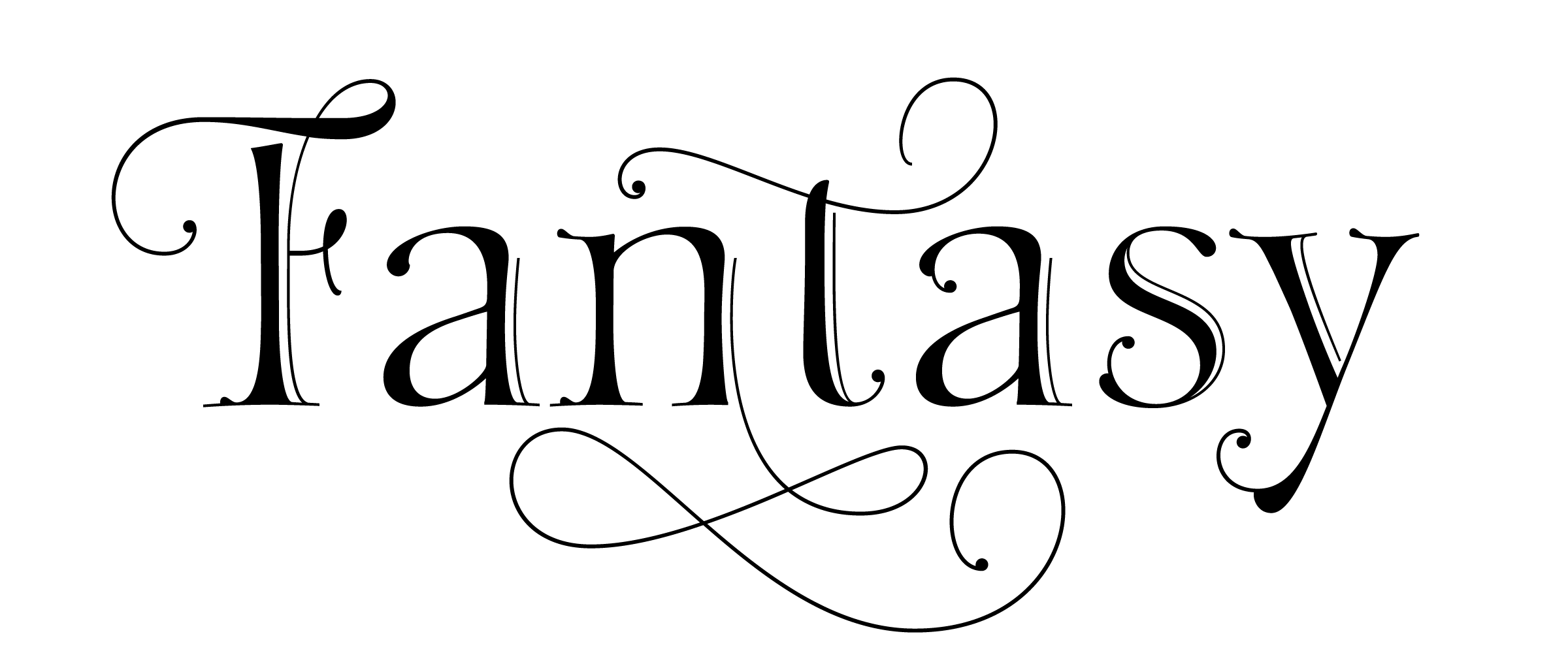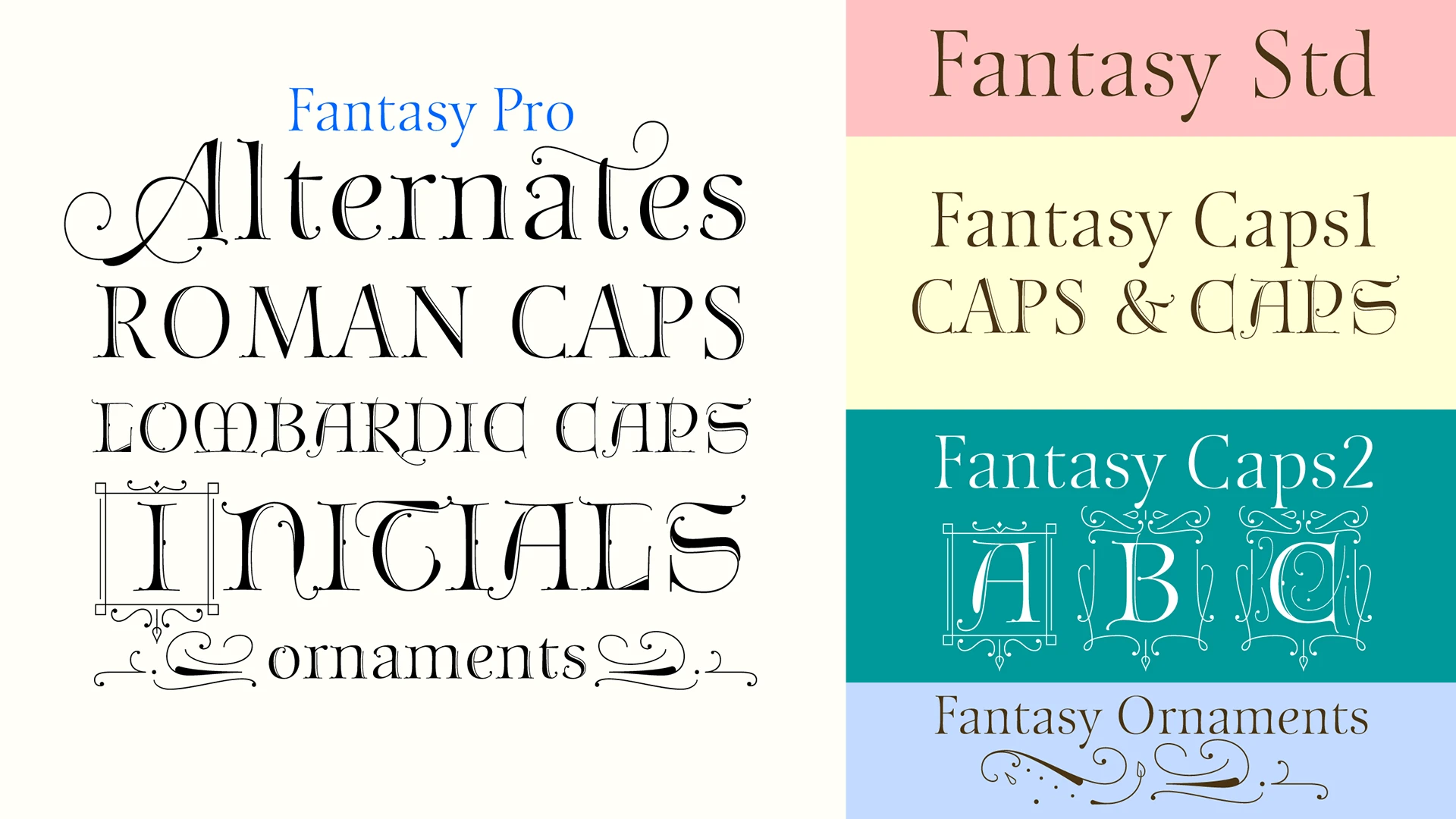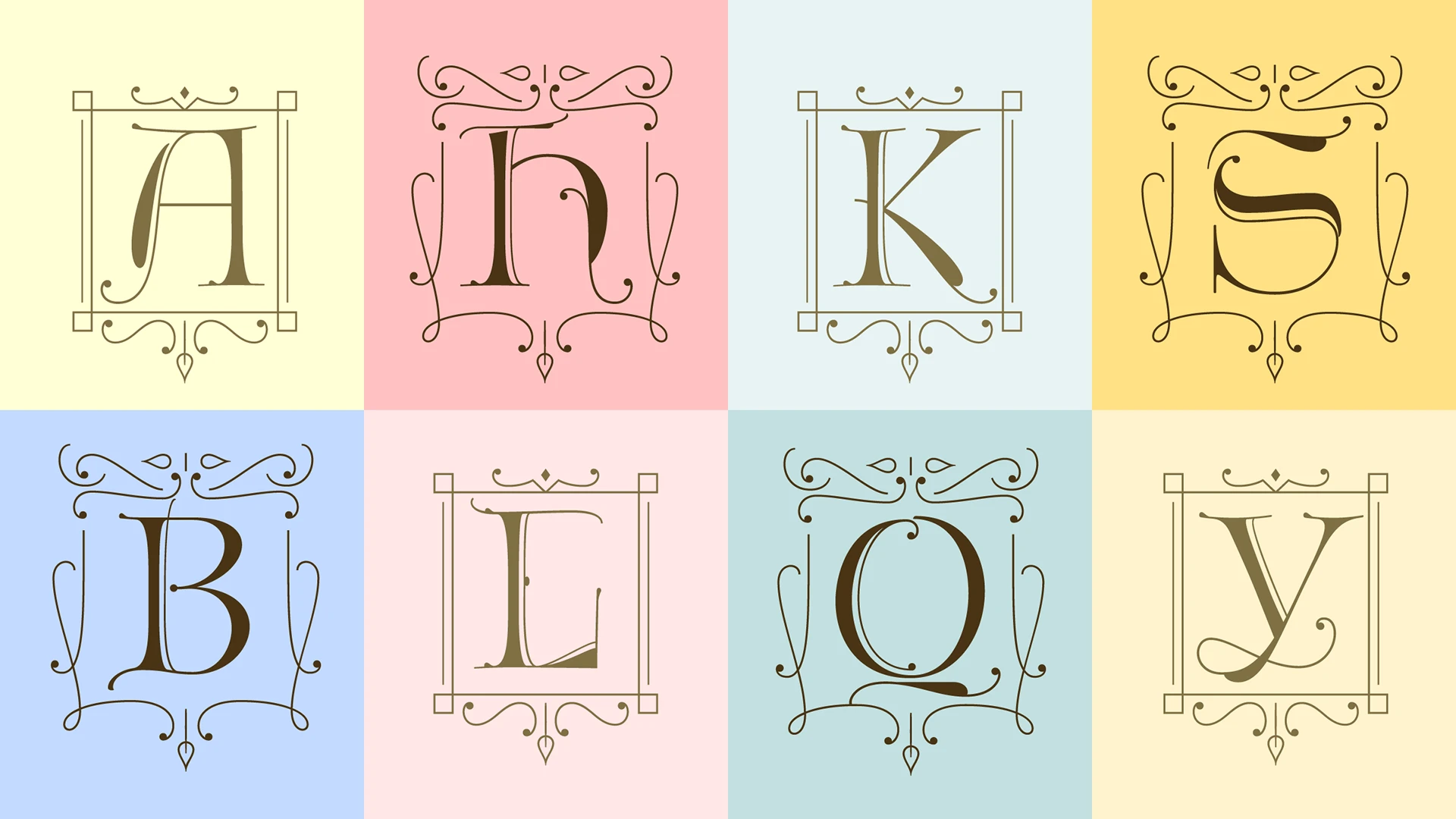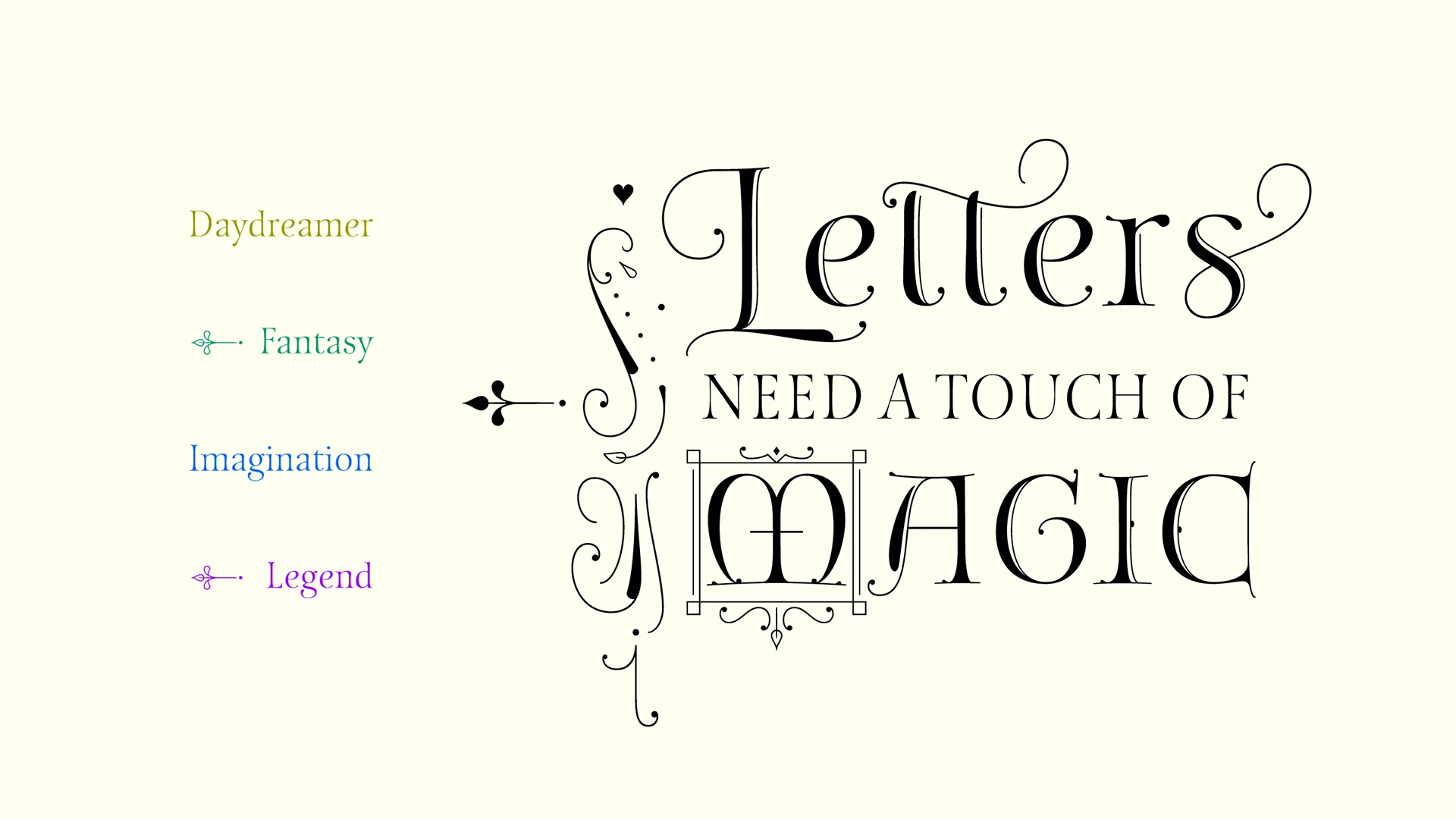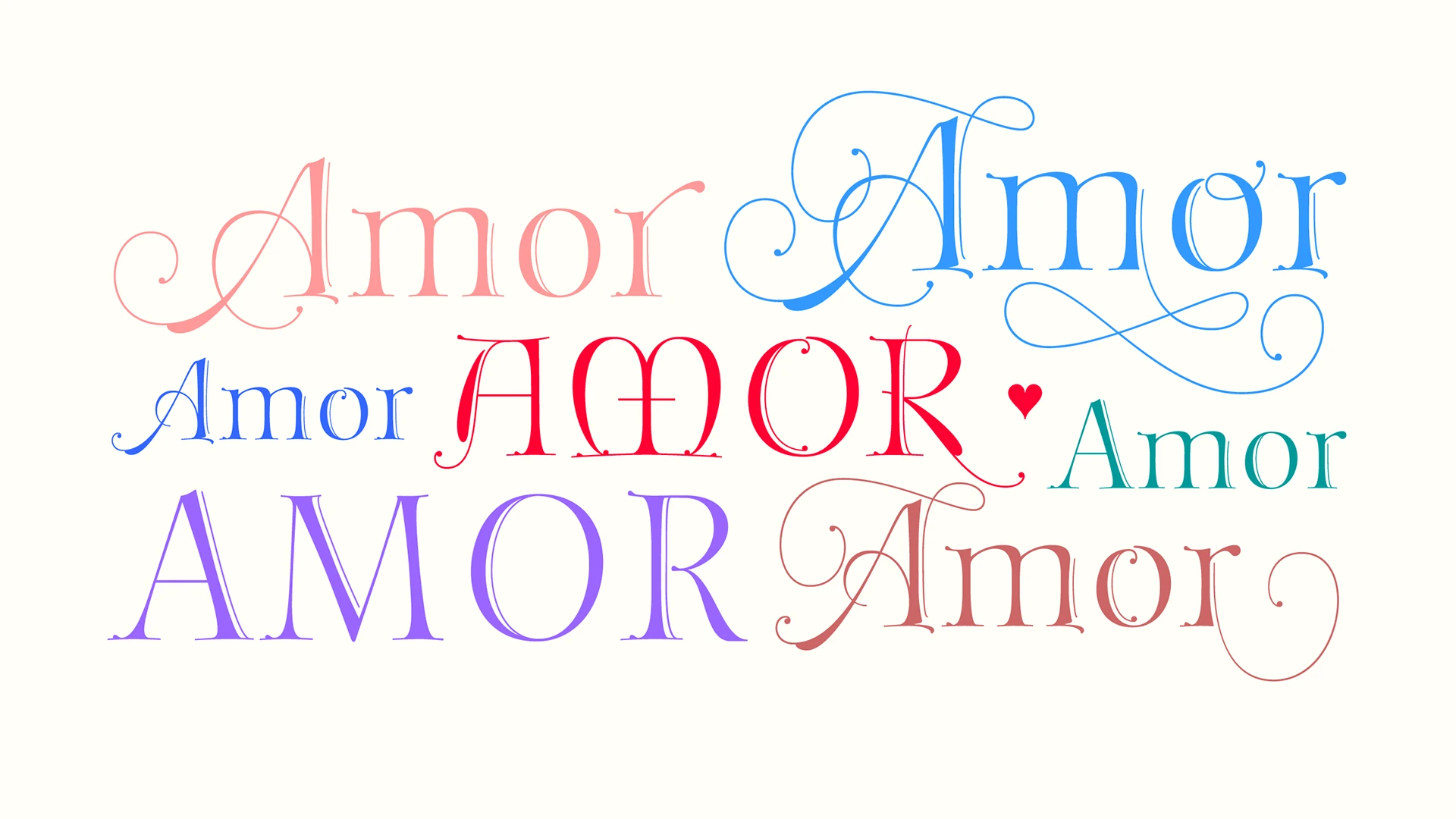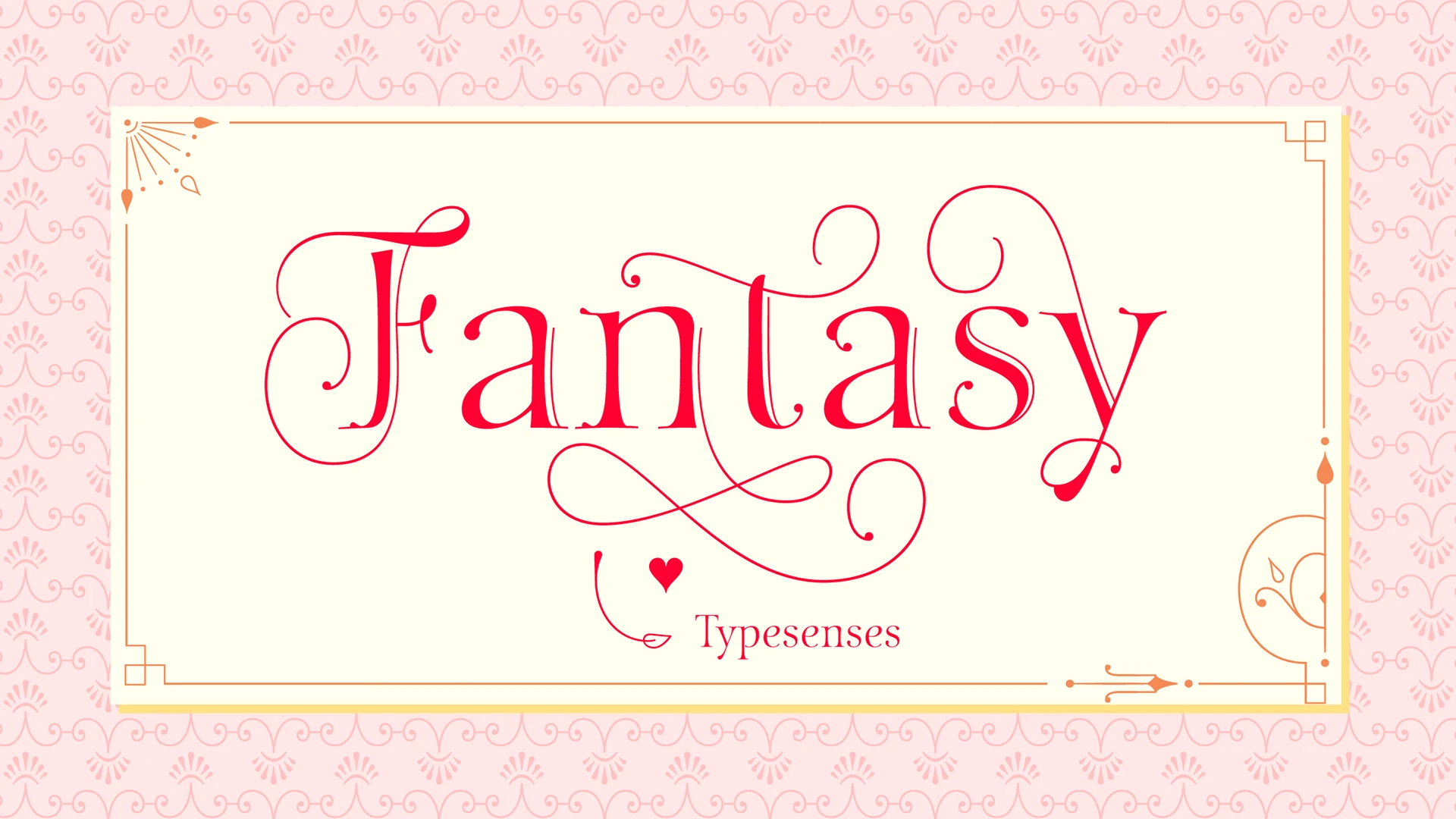
Fantasy Font
Fantasy draws on a series of historical calligraphic traditions: Roman capitals, Lombardic initials, enlightenment era ornamentation and refinement. The user is invited to deploy their imagination playing with the alternates, ornaments and frames in different universes like publications and stationery.
Fantasy Pro is the fully-featured OpenType version with two styles of capitals and plenty of swash alternates and ornaments. Each of these varieties is available as a separate font in addition to Fantasy Std, a set of unadorned standard characters for smaller settings.
Fantasy font by Typesenses — the words “Fantasy Pro Alternates ROMAN CAPS LOMBARDIC CAPS INITIALS ornaments” in various serif and ornamented styles, and on the right, “Fantasy Std Fantasy Caps1 CAPS & CAPS Fantasy Caps2 ABC Fantasy Ornaments” in similar styles, with the letters A, B, and C framed by ornate borders.
Fantasy font by Typesenses — a grid of eight decorated serif capital letters: A, H, K, S, B, L, Q, and Y, each within a unique ornamental frame
Fantasy font by Typesenses — the words “Letters need a touch of Magic” in a high-contrast serif with swash capitals and an ornate initial M, plus a list of four colorful words: Daydreamer, Fantasy, Imagination, and Legend.
Fantasy font by Typesenses — the word “Amor” repeated in various serif, swash, and ornamented styles, including one instance with a small red heart icon.
Fantasy font by Typesenses — the word “Fantasy” in a high-contrast serif script with swashes, and “Typesenses” below it, all within an ornate rectangular frame with corner decorations